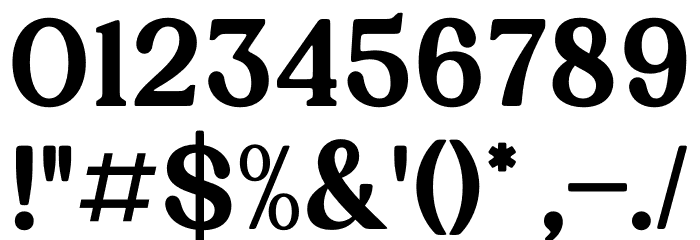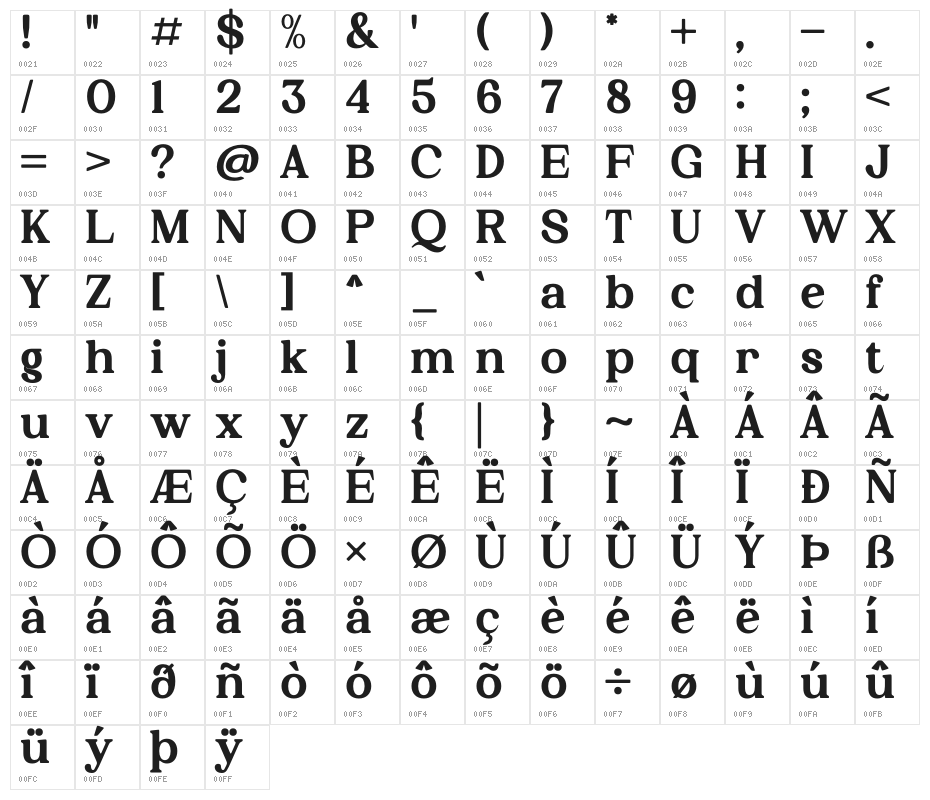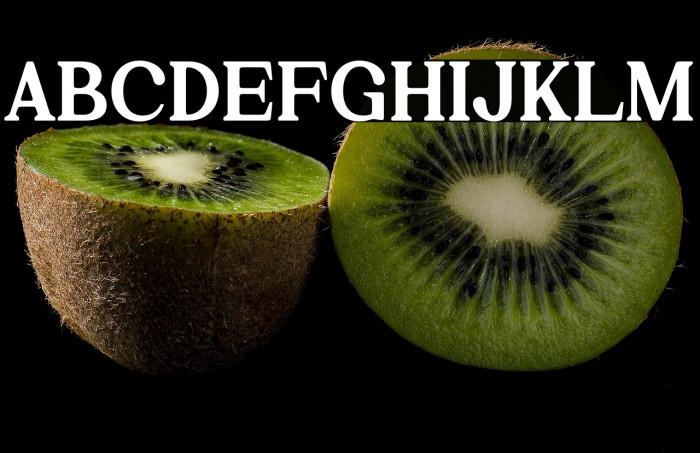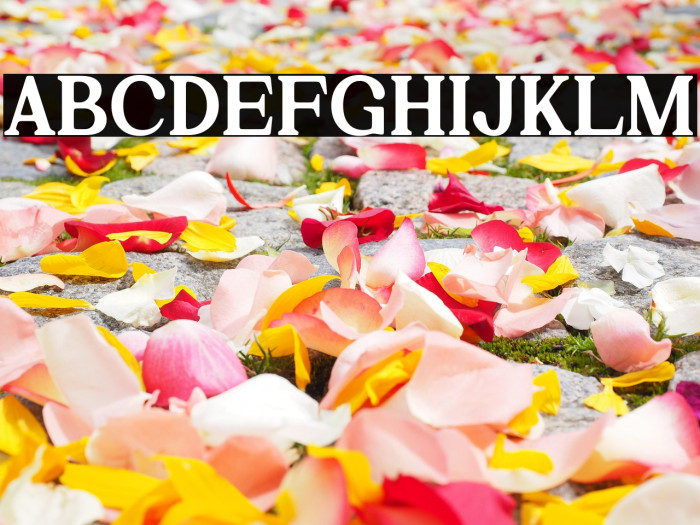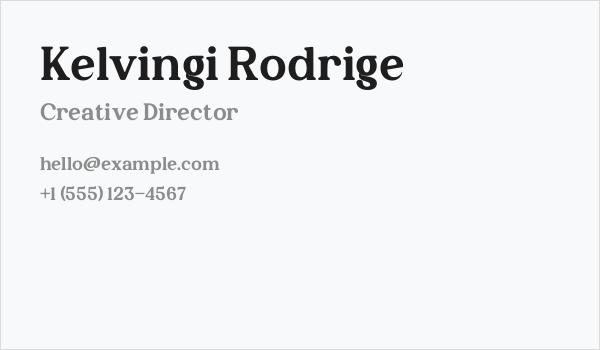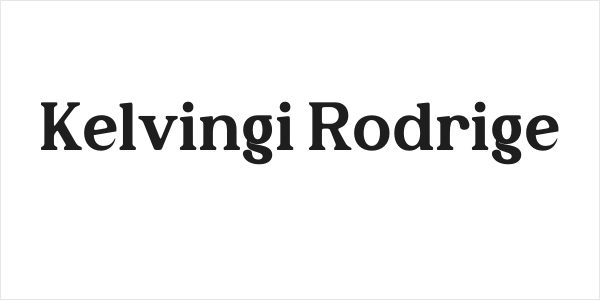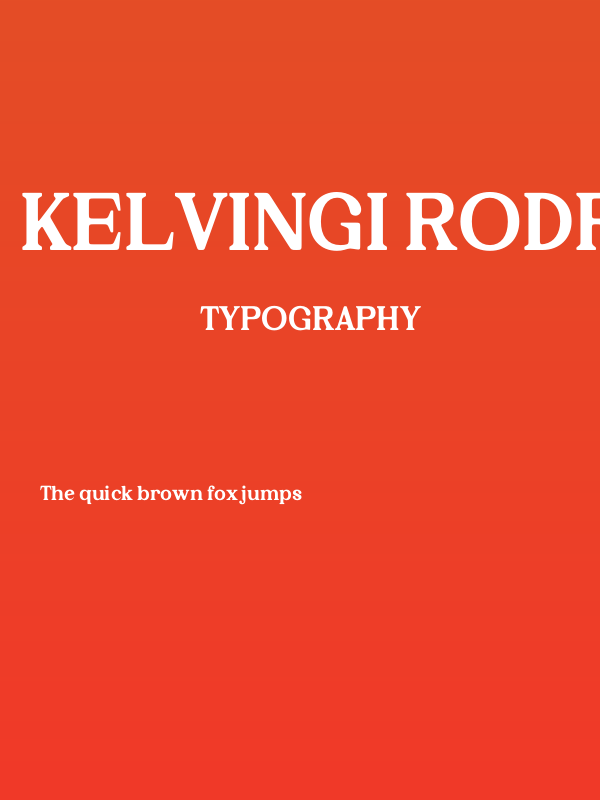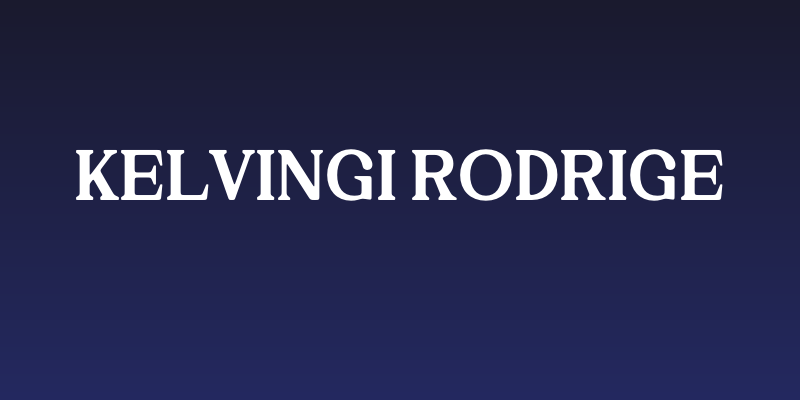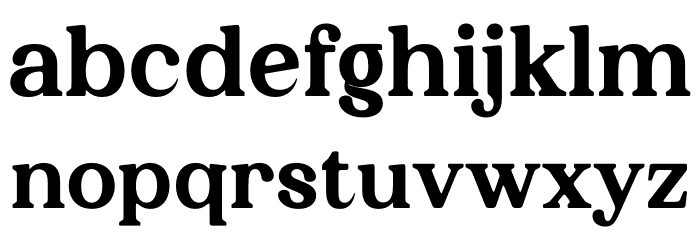
Kelvingi Rodrige Font
Kelvingi Rodrige Description
This font exhibits a classic serif style with strong, bold strokes and high contrast between thick and thin lines. The serifs are pronounced and add a touch of elegance and tradition to the overall appearance. The uppercase letters are well-proportioned, with a slightly condensed feel, while the lowercase letters maintain a consistent rhythm and balance. The numerals are clear and distinct, making them easily readable. Special characters are well-integrated, maintaining the font's cohesive look. This font is ideal for projects that require a formal and authoritative tone.